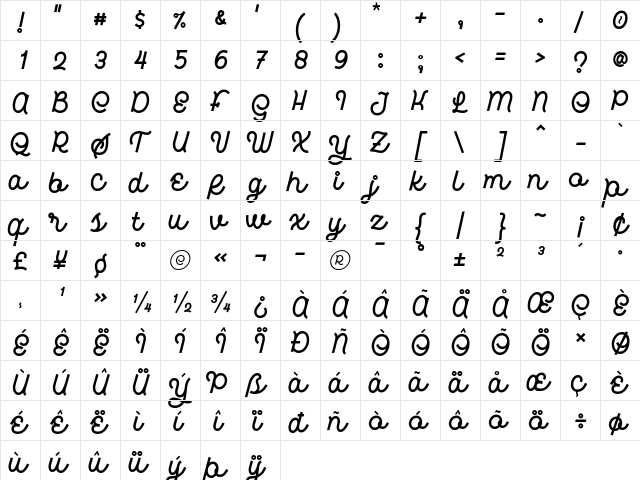
Hardino Regular
| Foundry | 7NTypes |
| Designer | Keitzo; Situjuh Nazara |
Design Context for Hardino Typeface
Hardino is a composed and adaptable typeface that performs quietly and consistently across a wide range of design contexts.